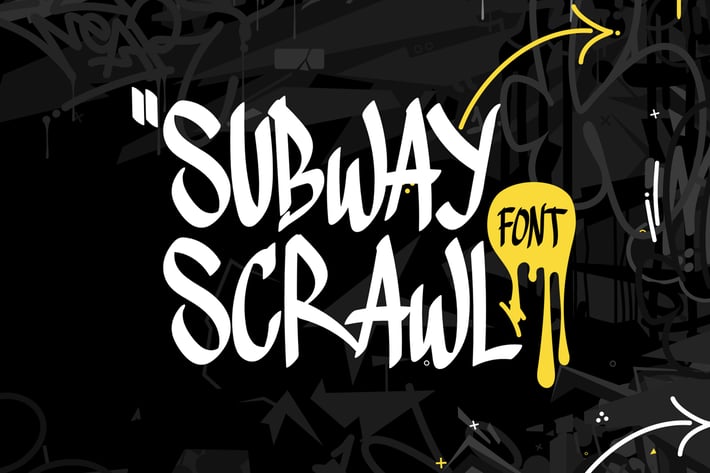
Subway Scrawl - Freestyle Graffiti Font
Introducing Subway Scrawl – the ultimate Freestyle Graffiti Font that infuses your designs with the raw, energetic spirit of urban street art. With its dynamic and expressive strokes, Subway Scrawl is perfect for creating bold, captivating visuals that stand out.
🚇 Urban Vibe: Subway Scrawl captures the essence of freestyle graffiti with its fluid, spontaneous strokes. Each character is meticulously crafted to exude a sense of raw creativity and urban energy, making it ideal for projects that need an authentic streetwise touch.
🖌️ Dynamic and Expressive: This font combines loose, flowing lines with a gritty, urban aesthetic, creating a visually striking effect. Perfect for posters, flyers, branding, and more, Subway Scrawl ensures your message is delivered with style and attitude.
💥 Bold Statements: Subway Scrawl is designed to make an impact. Its dynamic and expressive letterforms ensure your text captures attention and leaves a lasting impression. Use it for headlines, titles, and other prominent elements to create eye-catching visuals.
🖋️ Versatile Application: Whether you're designing for print or digital media, Subway Scrawl adapts seamlessly to various applications. Its distinctive style is perfect for a wide range of creative projects, from edgy streetwear branding and album covers to vibrant social media graphics and eye-catching event posters.
🎨 Unique Character: The handcrafted look of Subway Scrawl adds a unique character to your designs, making them stand out from the crowd. Each letter exudes a sense of individuality and artistic expression, perfect for projects that require a bold and personal touch.
Elevate your designs with Subway Scrawl – the Freestyle Graffiti Font that combines dynamic strokes with urban flair. Perfect for making a strong visual impact, Subway Scrawl is your go-to font for adding a powerful and energetic touch to any project.